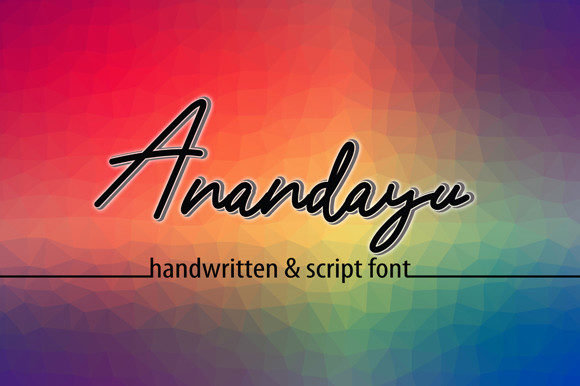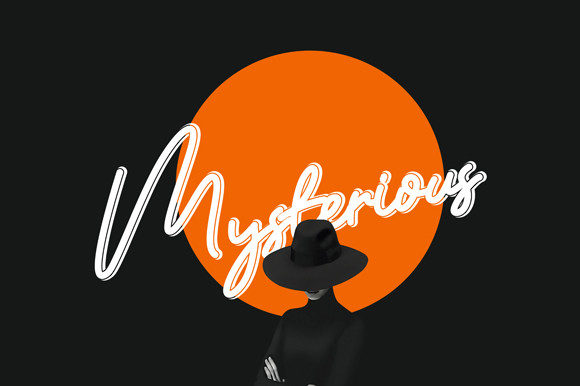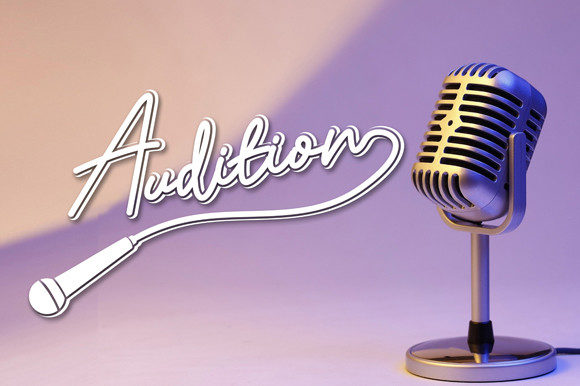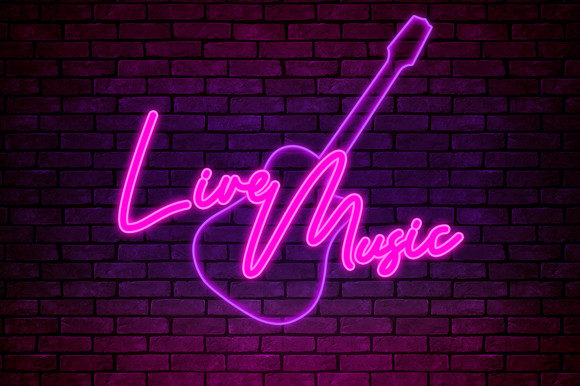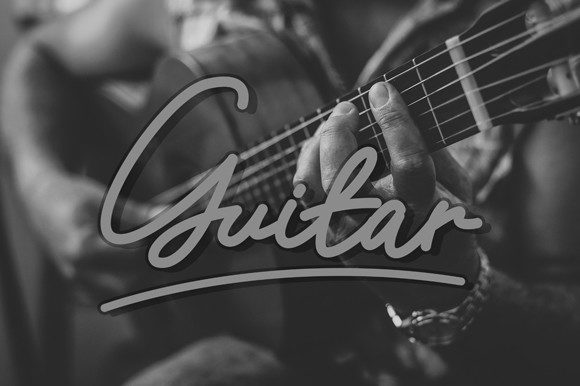
About Anandayu Font
“Anandayu” presents itself as a sweet and subtle handwritten font, meticulously crafted to achieve optimal outcomes. This font’s purpose is to infuse elegance and class into your design projects, making it a valuable asset in your creative toolkit.
The charm of “Anandayu” lies in its ability to convey a sense of delicacy and refinement. Its subtle strokes and carefully designed characters contribute to an aesthetic that resonates with sophistication and visual appeal. This font’s adaptability makes it a versatile choice for enhancing the visual allure of your work.
Whether applied to branding materials, invitations, logos, or any other design endeavor, “Anandayu” becomes a powerful tool. Its ability to add a layer of elegance and class ensures that it can elevate the aesthetics of your projects.
Incorporating “Anandayu” into your design projects means embracing its sweet and subtle attributes. By leveraging its unique charm, you’re enhancing the visual appeal of your work and ensuring that your designs resonate effectively with your intended audience. This font becomes a dependable resource for infusing your creations with a touch of sophistication and refinement, contributing to the overall impact of your designs.